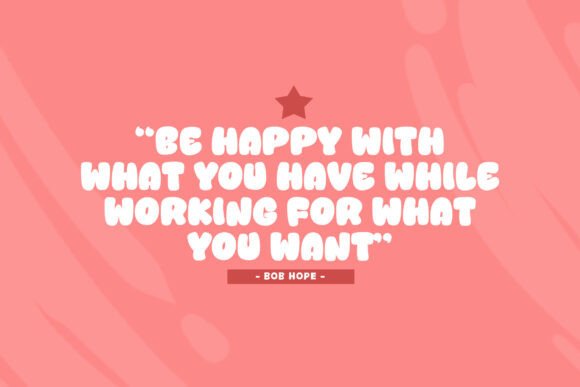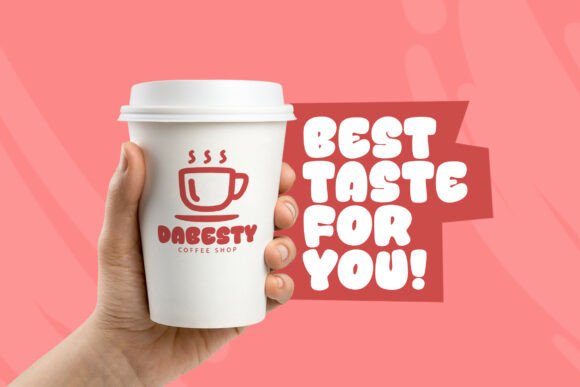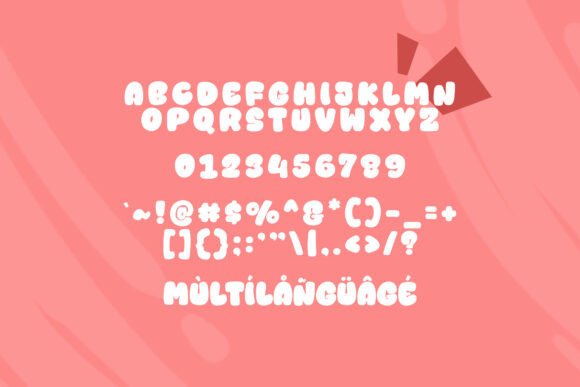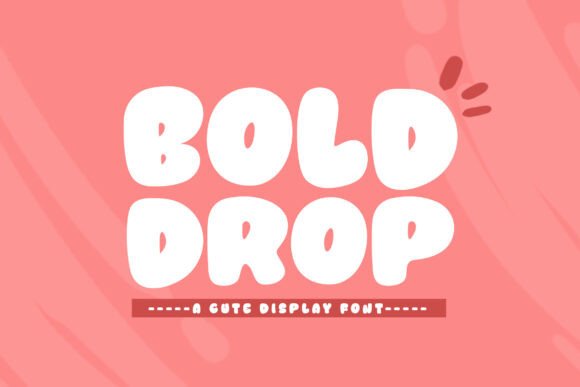
Introducing Bold Drop Font: The Ultimate Display Font for Creative Projects
Are you tired of using the same old fonts for your designs? Look no further! Bold Drop Font is a modern and adorable display font that’s perfect for adding a touch of personality to your posters, logos, magazines, book covers, banners, and so much more. With its unique and eye-catching style, this font is sure to make your designs stand out from the crowd.
What Makes Bold Drop Font So Special?
Bold Drop Font is a versatile and highly adaptable font that’s suitable for a wide range of creative projects. Its modern and cute design makes it perfect for:
- Posters: Create eye-catching posters for events, promotions, or announcements that grab attention.
- Logos: Design unique and memorable logos for your brand or business that leave a lasting impression.
- Magazines: Add a touch of personality to your magazine layouts with headings, titles, and captions that pop.
- Book Covers: Create stunning book covers that capture the essence of your story and entice readers.
- Banners: Design attention-grabbing banners for websites, social media, or advertising campaigns.
Key Features of Bold Drop Font
So, what makes Bold Drop Font so special? Here are some of its key features:
- Modern and Cute Design: Bold Drop Font boasts a fresh and adorable design that’s perfect for creating visually appealing designs.
- Highly Versatile: This font is suitable for a wide range of creative projects, from posters and logos to magazines and book covers.
- Easily Readable: Despite its bold and decorative style, Bold Drop Font remains easily readable, even at smaller sizes.
- Wide Range of Applications: Use Bold Drop Font for both digital and print projects, including social media graphics, presentations, and more.
Why Designers and Crafters Love Bold Drop Font
Designers and crafters love Bold Drop Font for its:
- Uniqueness: Bold Drop Font offers a fresh and unique design that’s sure to make your designs stand out.
- Versatility: This font is suitable for a wide range of creative projects, making it a valuable addition to any design library.
- Ease of Use: Bold Drop Font is easy to use and pairs well with other fonts, making it a joy to work with.
| Font Name | Bold Drop Font |
| Author | si.jalembe |